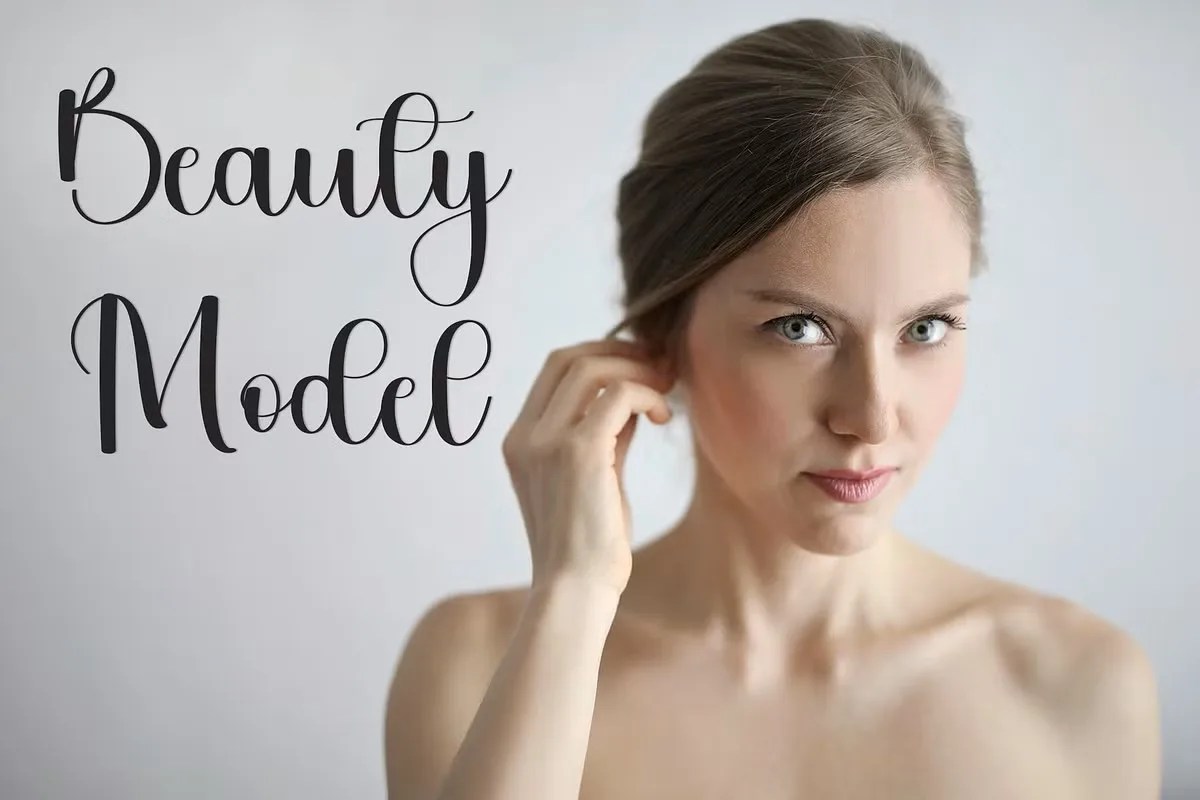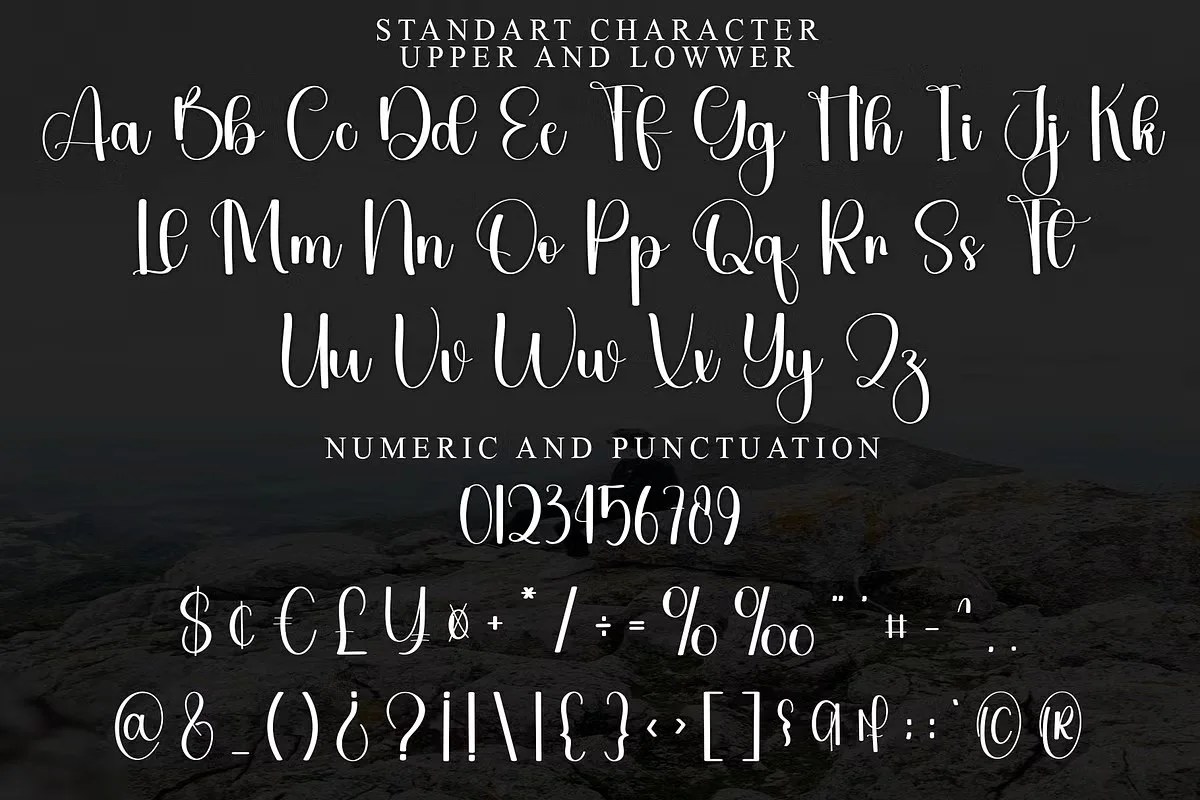
Nothing by InermediaStudio, an exquisitely elegant signature font that embodies the beauty of minimalism. Its light, effortless strokes create a feeling of personal, handwritten grace. The Nothing font is designed for subtlety and sophistication. It adds a touch of class without ever overwhelming your design. This typeface proves that true simplicity is the ultimate form of elegance.
This font is ideal for brands and projects that value understated style. Specifically, photographers and artists can use it to create a beautiful, unobtrusive watermark or logo. High-end fashion and lifestyle brands can also use this elegant signature font to convey a sense of chic minimalism on their websites and social media. Furthermore, it is a wonderful choice for wedding invitations, personal stationery, or book author signatures. Use it anywhere you need a touch of human connection and refined grace.
• Elegant and minimalist signature script
• Features thin, monoline strokes
• Ideal for logos, watermarks, and branding
• Adds a subtle and sophisticated touch
Nothing